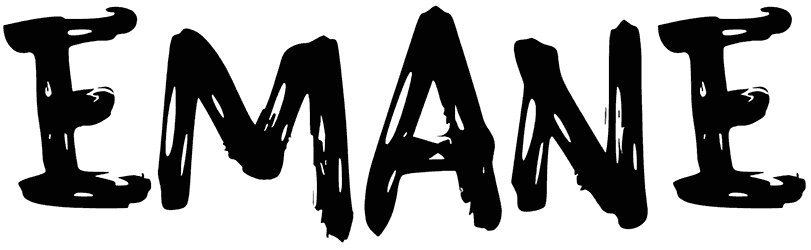
e Emane Font
A paint font like the present offer is a nice item selection for varied, cute, and artistic designs. The playful and natural visual of this brush font is going to impress your audience. We offer you to set the e Emane font on your new layouts, for instance, a hoodie, a street art poster, or so forth, and reveal your creativity.